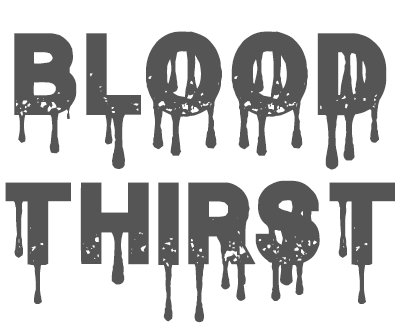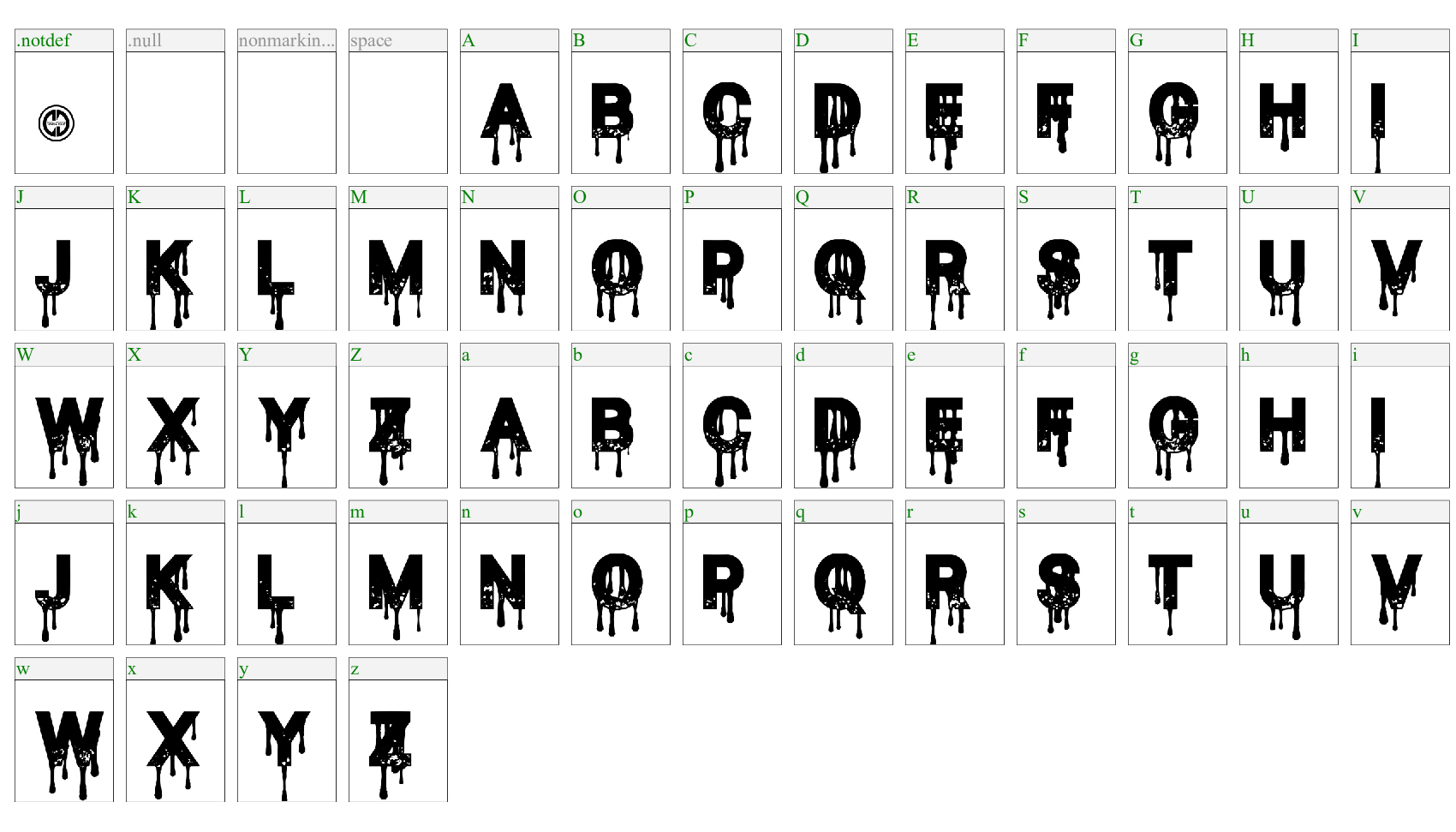
Blood Thirst is a frightening and intense font that is perfect for creating horror-themed designs with a touch of gore. This font features irregular and jagged letterforms with a blood dripping effect, giving it a violent and disturbed feel. The font is designed to look like it has been written in blood, making it ideal for use in horror-themed projects such as movie posters, book covers, or Halloween graphics. The font's creepy and macabre style is sure to grab the attention of anyone who sees it, making it a great choice for designers looking to add a touch of terror and gore to their work. Whether you're creating a horror movie poster or a spooky invitation, Blood Thirst is the perfect font to add a touch of fear and violence to your design.
Lowercase: Same as uppercase
Numbers: No
Symbols: No
Accents: No
Theme: Horror